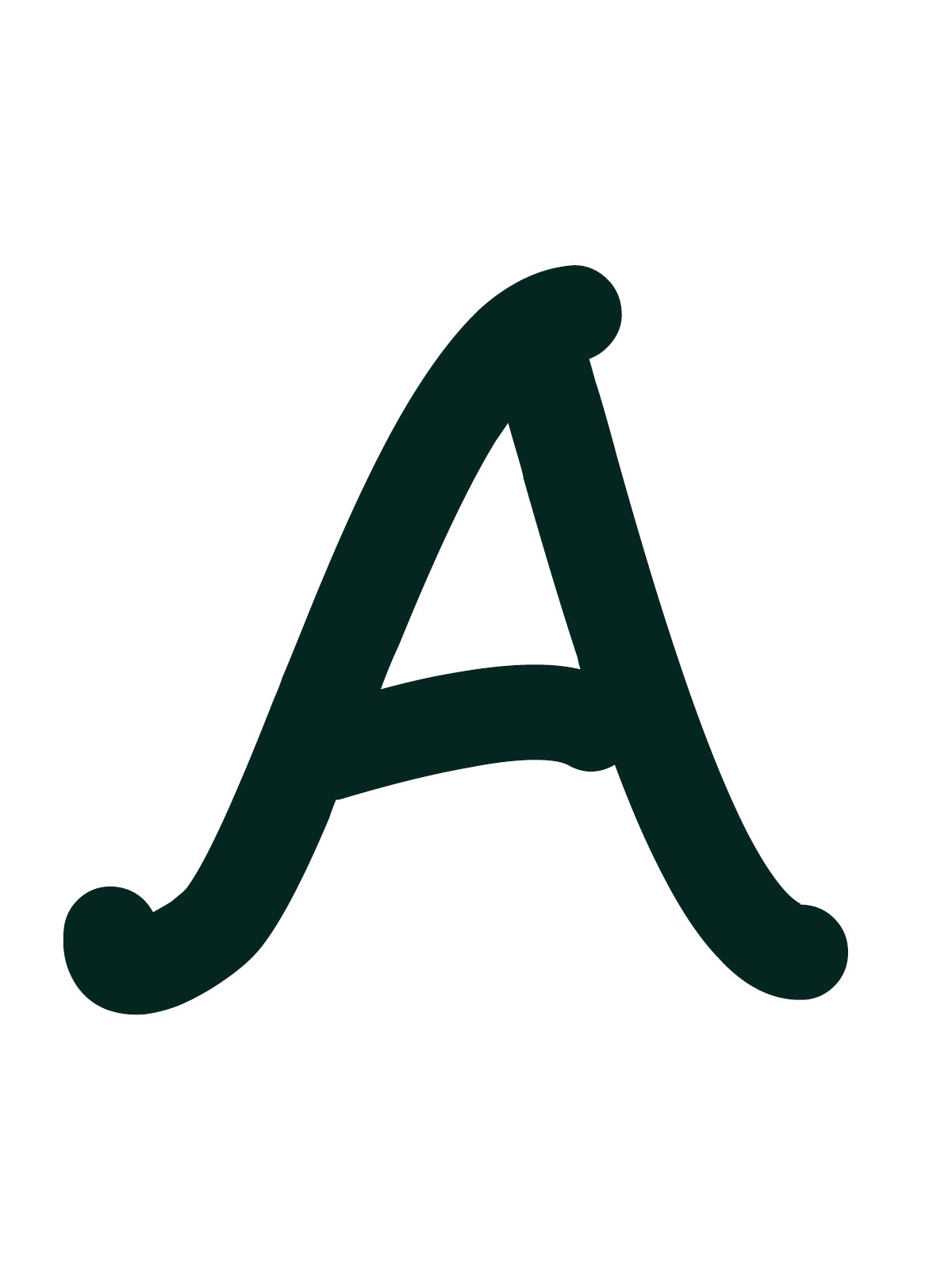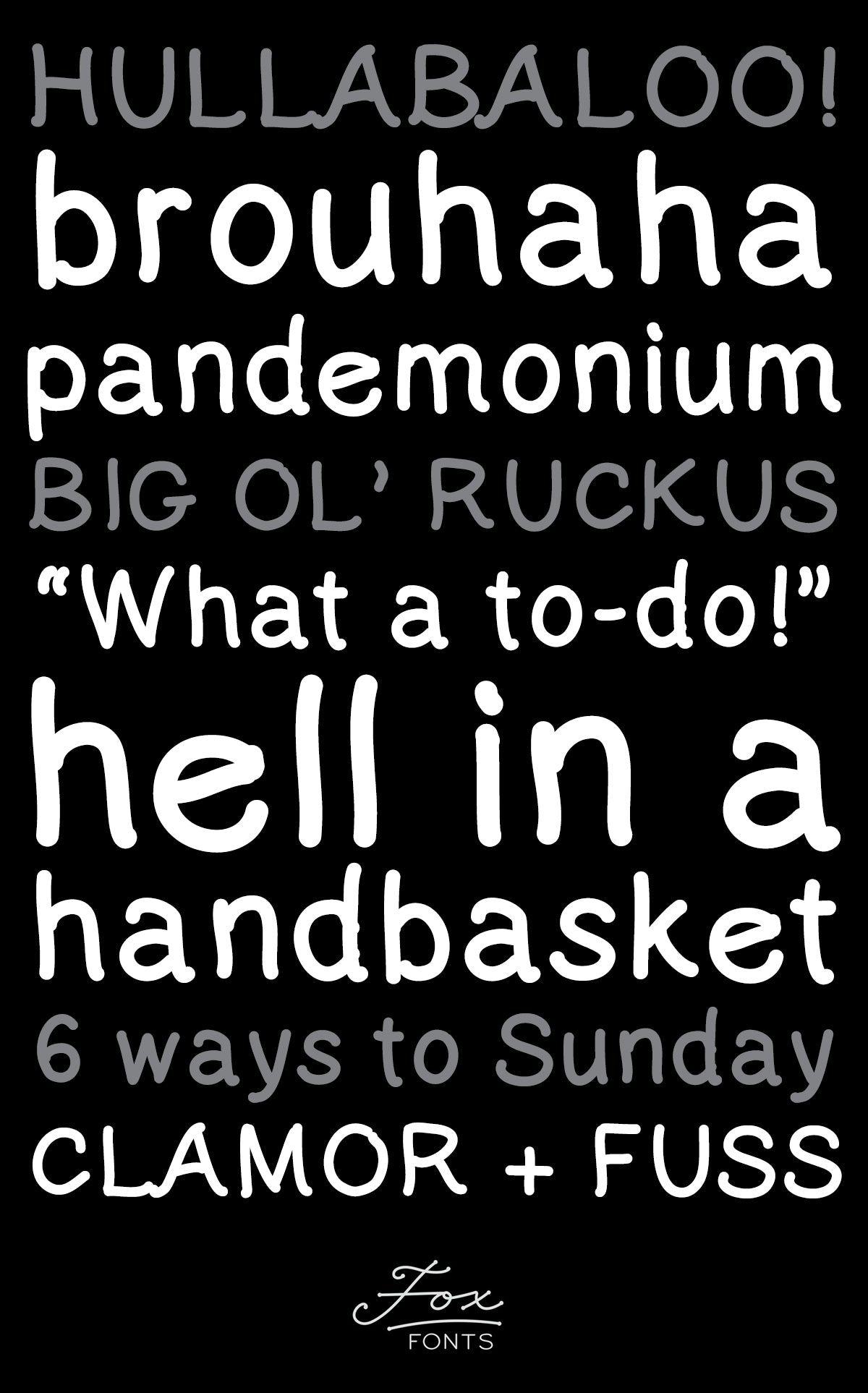
Chickscritch
This neat, tidy casual handwriting font is easy to read, even at small sizes, thanks to its thick stroke and open counters. It appears as written carefully with a felt tip marker.